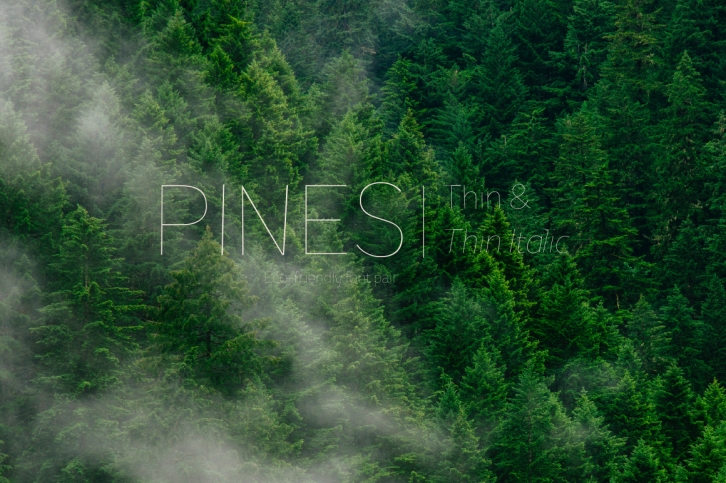
Pines Thin & Pines Thin Italic is a beautiful font that was designed by Pinata. It's a great choice for designers and creatives who need such a font. It was released on July 31, 2017 and the file size is 2.34 MB. Pines Thin & Pines Thin Italic may give a more youthful, expressive and casual look to your project. It is a very beautiful, refined, elegant, and high-quality font.